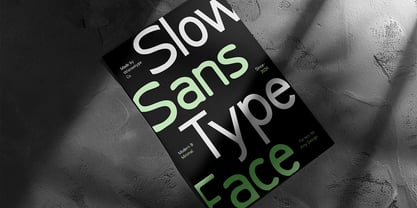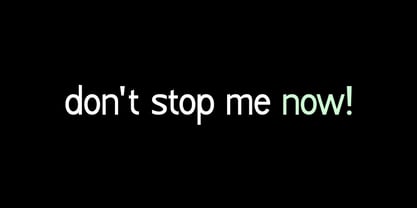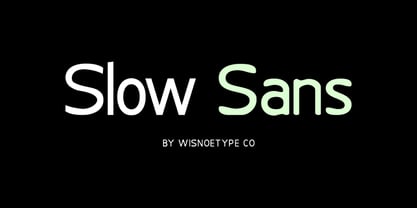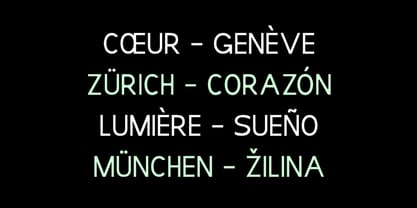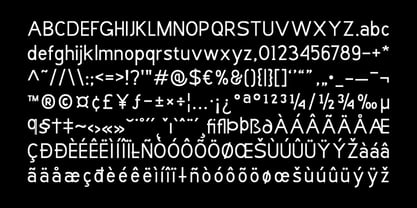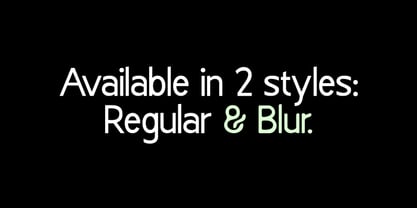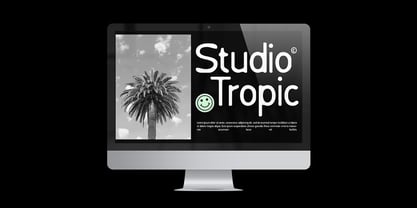
Slow Sans
by Wisnoetype Co
The Slow Sans Font Family was designed by Wisnu Utoyo and published by Wisnoetype Co. Slow Sans contains 2 styles and family package options. More about this family
Slow Sans is a clean and simple sans serif font, offering versatility with two styles: Regular and Blur. This minimalistic design makes it perfect for branding, logos, and much more, bringing a modern touch to any project. With its straightforward elegance, Slow Sans is ideal for designers seeking a refined, adaptable font that maintains clarity and style across various applications. Thanks! Wisnoetype Co.
Designers: Wisnu Utoyo
Foundry: Wisnoetype Co